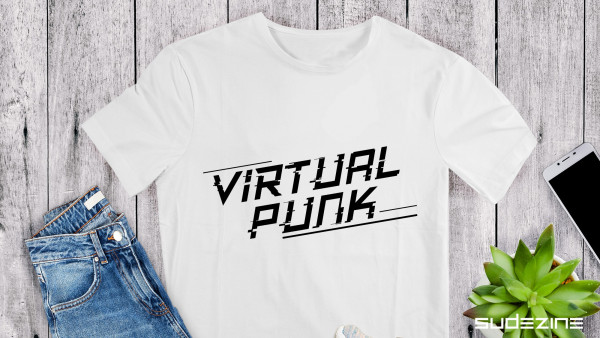
SD Cyber Glitch Font
SD Cyber Glitch Font is a Futuristic Cyber Font, Use logos, quotes, invitations, greeting cards, journals, posters, clothing, and more